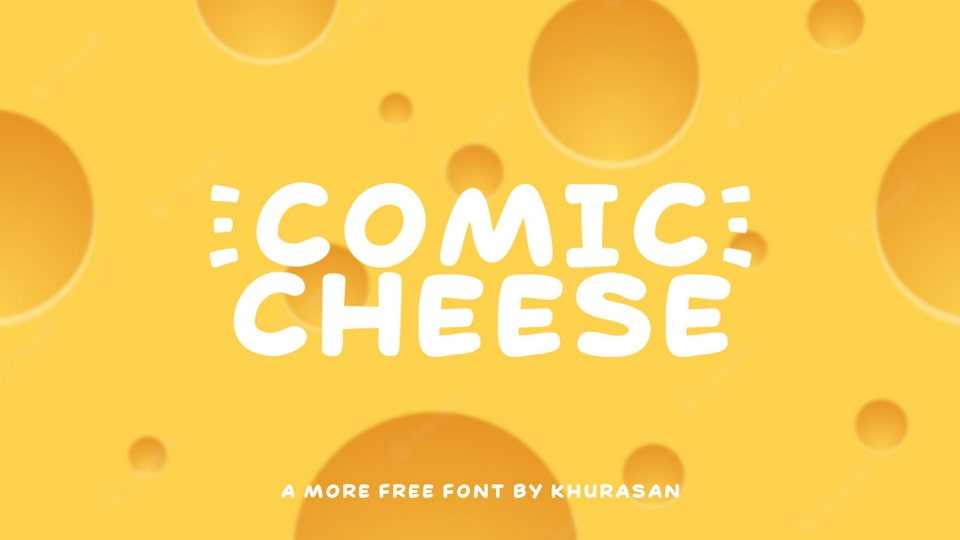
Download Comic Cheese font, a hand lettered cartoon typeface filled with a cheerful, natural vibe. Add a playful and quirky touch to your designs with Comic Cheese font.